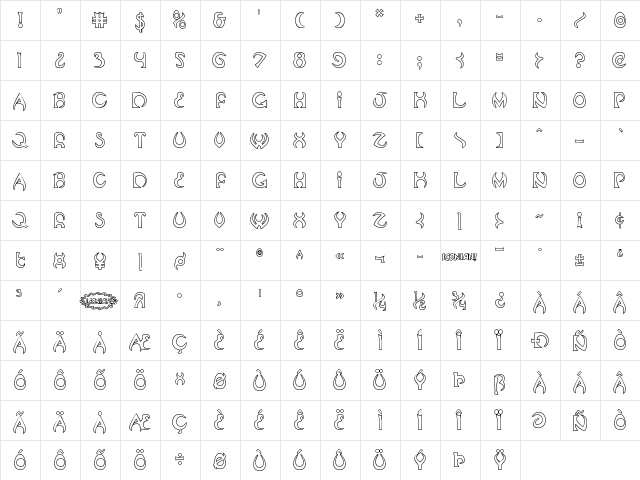
Oubliette Outline
Design Context for Oubliette Outline Typeface
Oubliette Outline is built around its visual character rather than neutral utility — its distinctive forms are designed to make an impression at display sizes.
Font Pairing: Pair with a clean neutral sans-serif for body copy to let Oubliette Outline's character lead without overwhelming the composition.
Pro Tip: Treat Oubliette Outline as the centrepiece of your typographic hierarchy. One strong heading set in a decorative face can carry an entire layout.